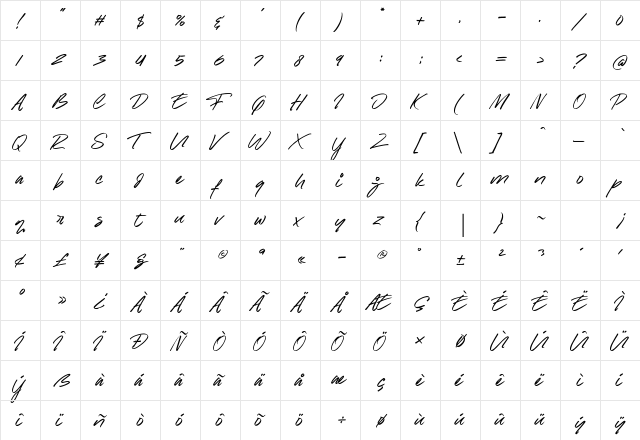
Raynoss Regular
| Foundry | Kong Font |
| Designer | Kong Font |
Design Context for Raynoss Typeface
Raynoss is a composed and adaptable typeface that performs quietly and consistently across a wide range of design contexts.